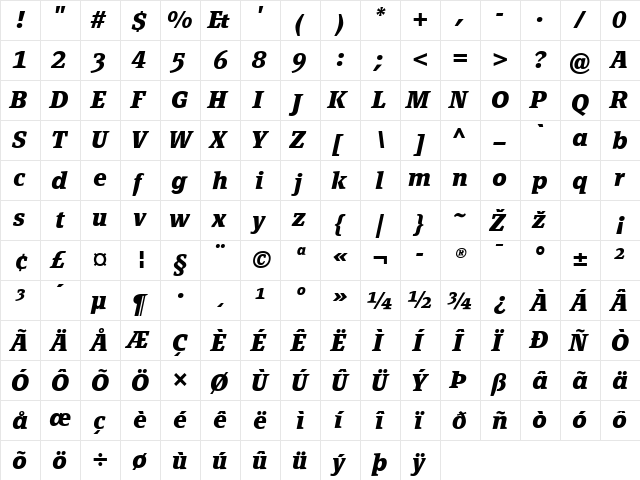
PageSerifTF-BoldItalic Regular Font Preview
| Foundry | Albert Boton, published by FontShop International for the FontFont Library |
| Designer | Albert Boton |
Design Context for PageSerifTF-BoldItalic Typeface
PageSerifTF-BoldItalic carries the refined structure of traditional serif typography, with bracketed terminals and considered proportions that communicate credibility and craft. Its italic angle brings a sense of urgency and motion to the letterforms. The heavy weight commands attention and anchors typographic hierarchies.